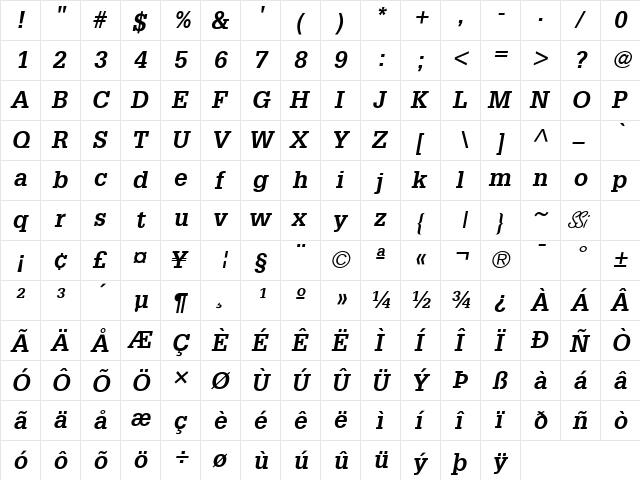
Installation SSi Bold Italic Font Preview
Installation SSi Bold Italic
Installation SSi Bold Italic Font Details
Design Context for Installation SSi Typeface
Installation SSi takes a measured approach to typography — its balanced proportions and neutral character make it a reliable workhorse for both digital and print work. Its italic angle brings a sense of urgency and motion to the letterforms. Its bold stroke weight gives it real presence on the page.
Pro Tip: Use Installation SSi for emphasis, pull quotes, and subheadings where its slanted energy can add rhythm to the layout.